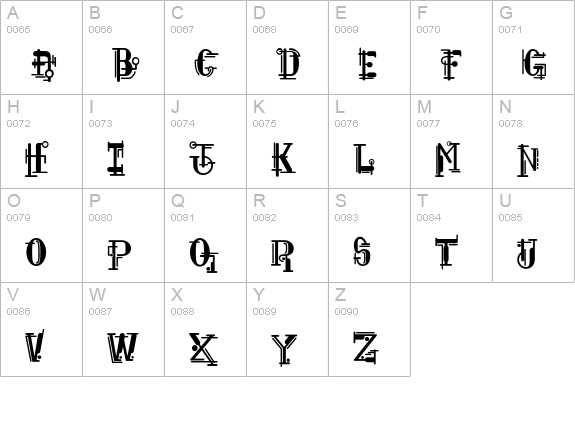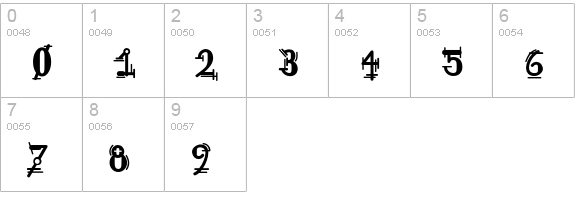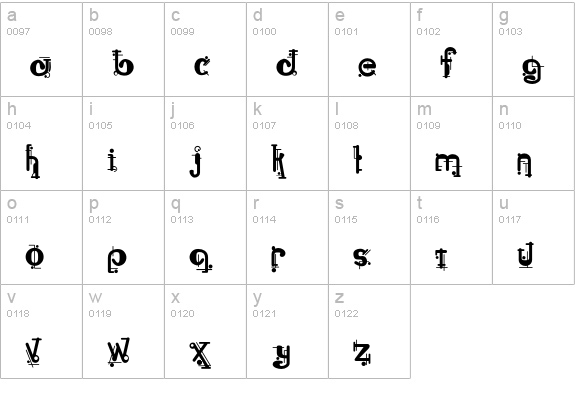
ComplexRad Font Details
Introducing ComplexRad font - a modern and sophisticated typeface that combines intricate details with a bold and unique style. This font is perfect for adding a touch of elegance and complexity to your designs. With its sleek lines and intricate curves, ComplexRad is sure to make a statement and captivate your audience. What sets ComplexRad font apart is its versatility - it can be used for a wide range of design projects, from branding and logos to posters and invitations. Whether you're looking to create a sleek and modern look or add a touch of sophistication to your designs, ComplexRad has you covered. And the best part? ComplexRad font is absolutely free to download at FontsMarket.com! So you can elevate your designs without breaking the bank. Don't miss out on this opportunity to add a touch of complexity and style to your projects with ComplexRad font. Download it now and let your creativity soar!